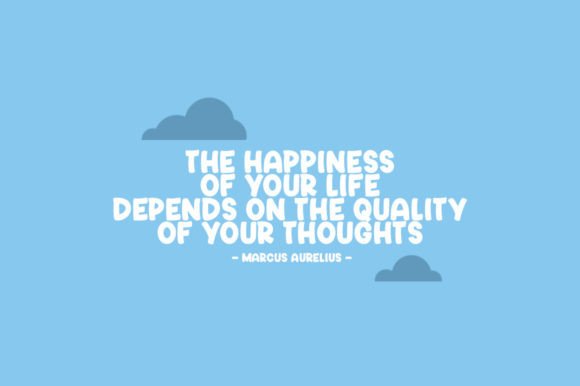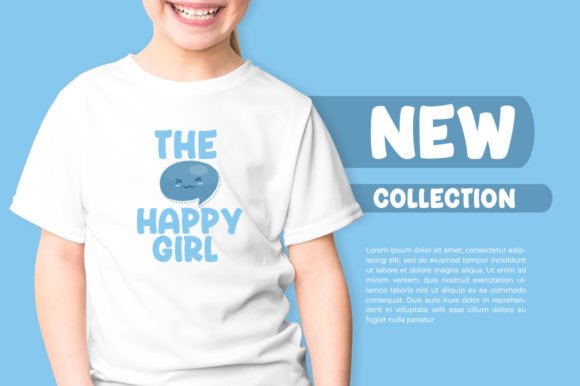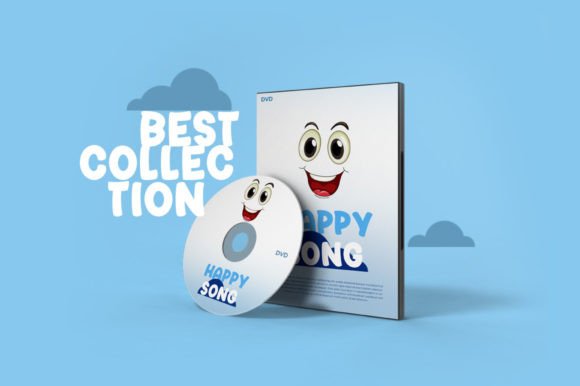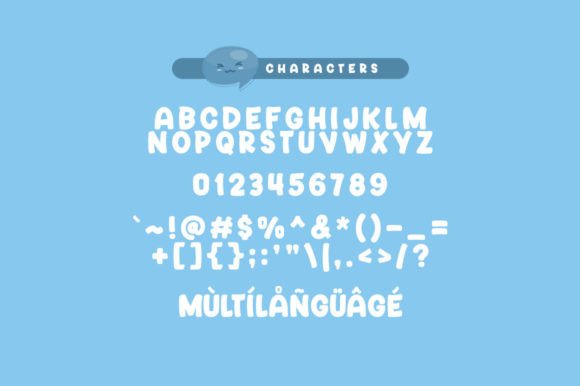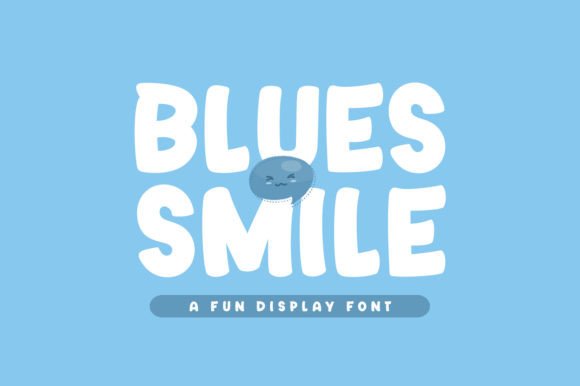
The Blues Smile Font: A Playful Powerhouse for Your Designs
I’ll never forget the time I was working on a children’s book project, and I just couldn’t find the right font to match the playful illustrations. The client wanted something fun, energetic, and engaging, but everything I tried seemed either too boring or too over-the-top. That’s when I stumbled upon the Blues Smile font, and it was love at first sight! 💕
Blues Smile is a fun and cool display font that’s perfect for cartoon-related designs, children’s games, or any creation that requires a playful touch. In this article, I’ll share my honest review of the font, provide a practical guide on how to use it, and explore some similar fonts and alternatives.
- ✅ Playful and energetic vibe: Blues Smile has a unique, bouncy feel that’s perfect for designs that need a bit of whimsy.
- ✅ Highly legible: Despite its playful nature, the font is surprisingly easy to read, even at smaller sizes.
- ✅ Versatile: Blues Smile works well for both digital and print designs, from posters to social media graphics.
- ⚠️ Limited use for body text: Blues Smile is a display font, so it’s best used for headlines and titles rather than large blocks of text.
- ⚠️ Some letters may be a bit quirky: The font’s playful nature means that some letters, like the lowercase “g” and “q”, might look a bit unusual.
- Experiment with OpenType features, like stylistic alternates and glyphs, to add more personality to your text.
Blues Smile was designed by a team of creatives who wanted to create a font that captured the playful, carefree spirit of the blues. They drew inspiration from vintage music posters, playful typography, and the world of cartoons. The result is a font that’s both fun and sophisticated.
| Author | si.jalembe |
| Q: What type of designs is Blues Smile best suited for? | A: Blues Smile is perfect for cartoon-related designs, children’s games, and any creation that requires a playful touch. |
| Q: Is Blues Smile available in different weights or styles? | A: Blues Smile comes in a single weight, but it has a range of OpenType features and glyphs to help you customize your text. |